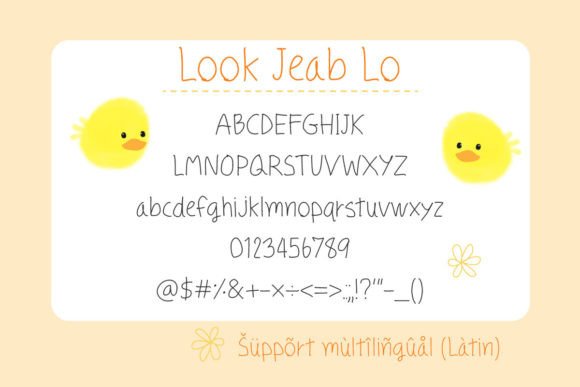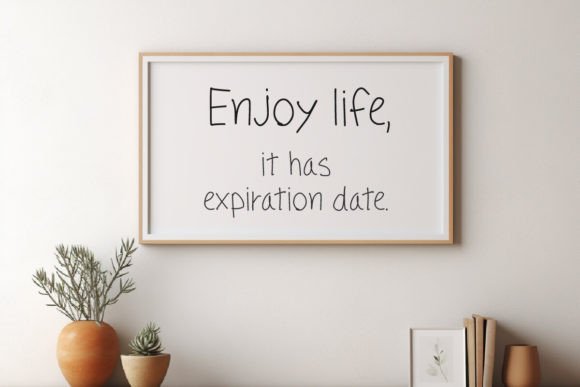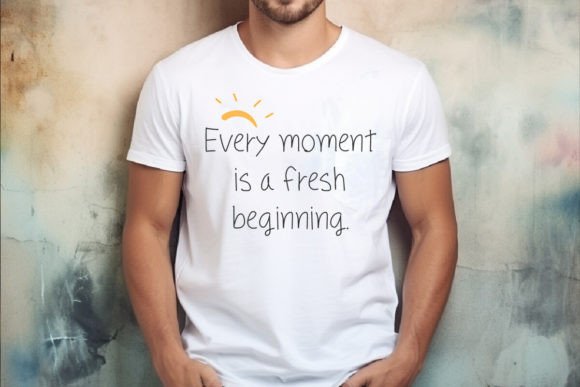
Introduction to Look Jeab Lo Font
Look Jeab Lo is a sweet and friendly sans serif font.
Key Features of Look Jeab Lo Font
Why Choose Look Jeab Lo Font?
Look Jeab Lo Font offers exceptional quality and versatility, making it a valuable addition to your design toolkit. Whether you’re creating for personal projects or commercial use, Look Jeab Lo Font delivers professional results.